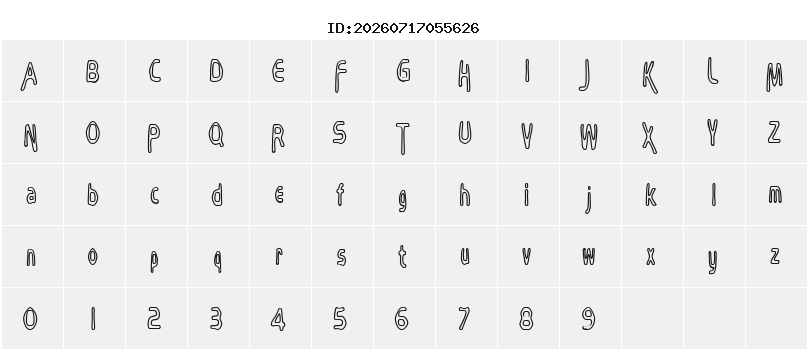
Bubbly Frog Hollow Preview
• Font Name: Bubbly Frog Hollow
About Bubbly Frog Hollow.ttf
Bubbly Frog Hollow.ttf is a modern, elegant sans-serif font designed for ultimate readability and visual harmony. Perfect for branding, headlines, web design, and print materials.